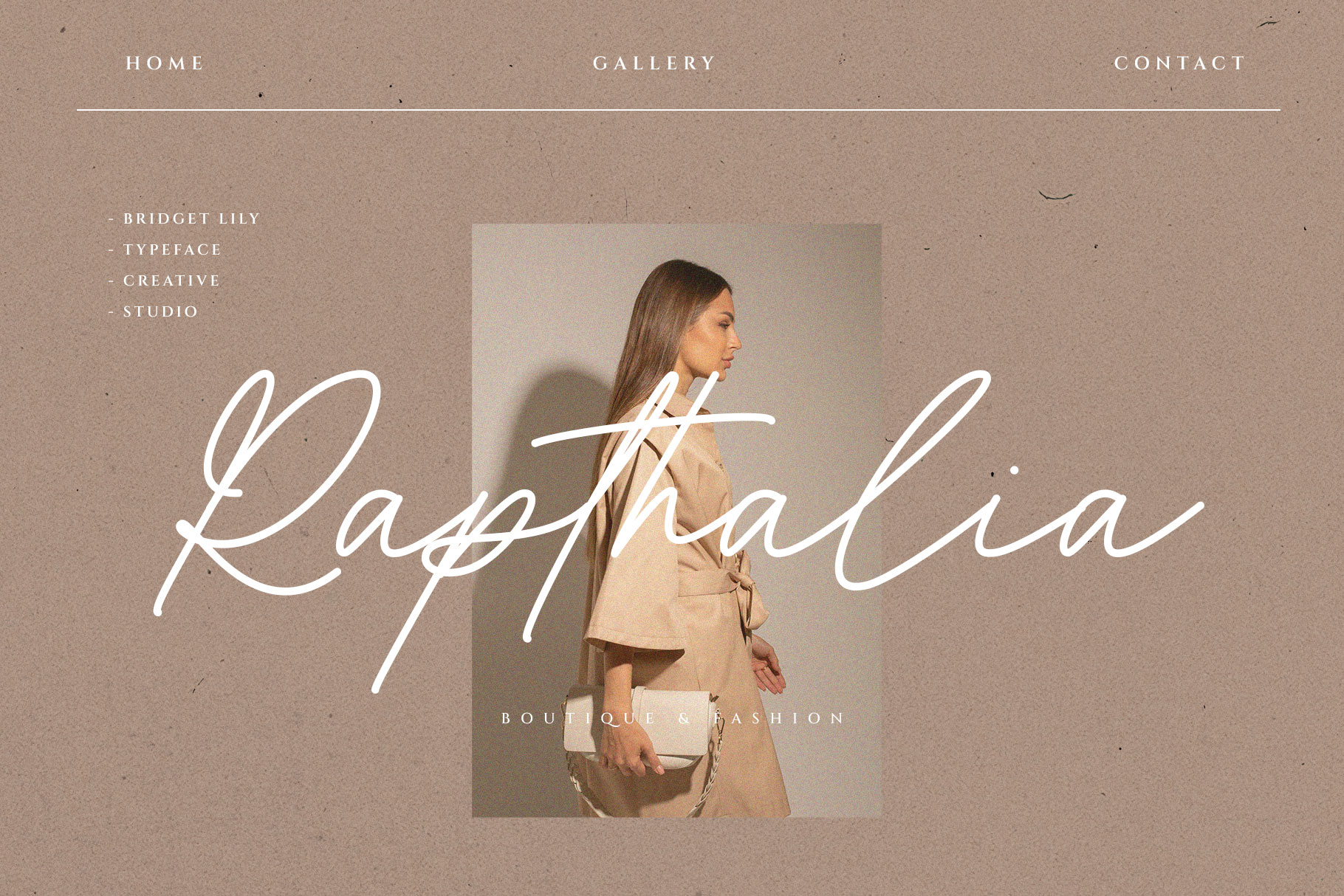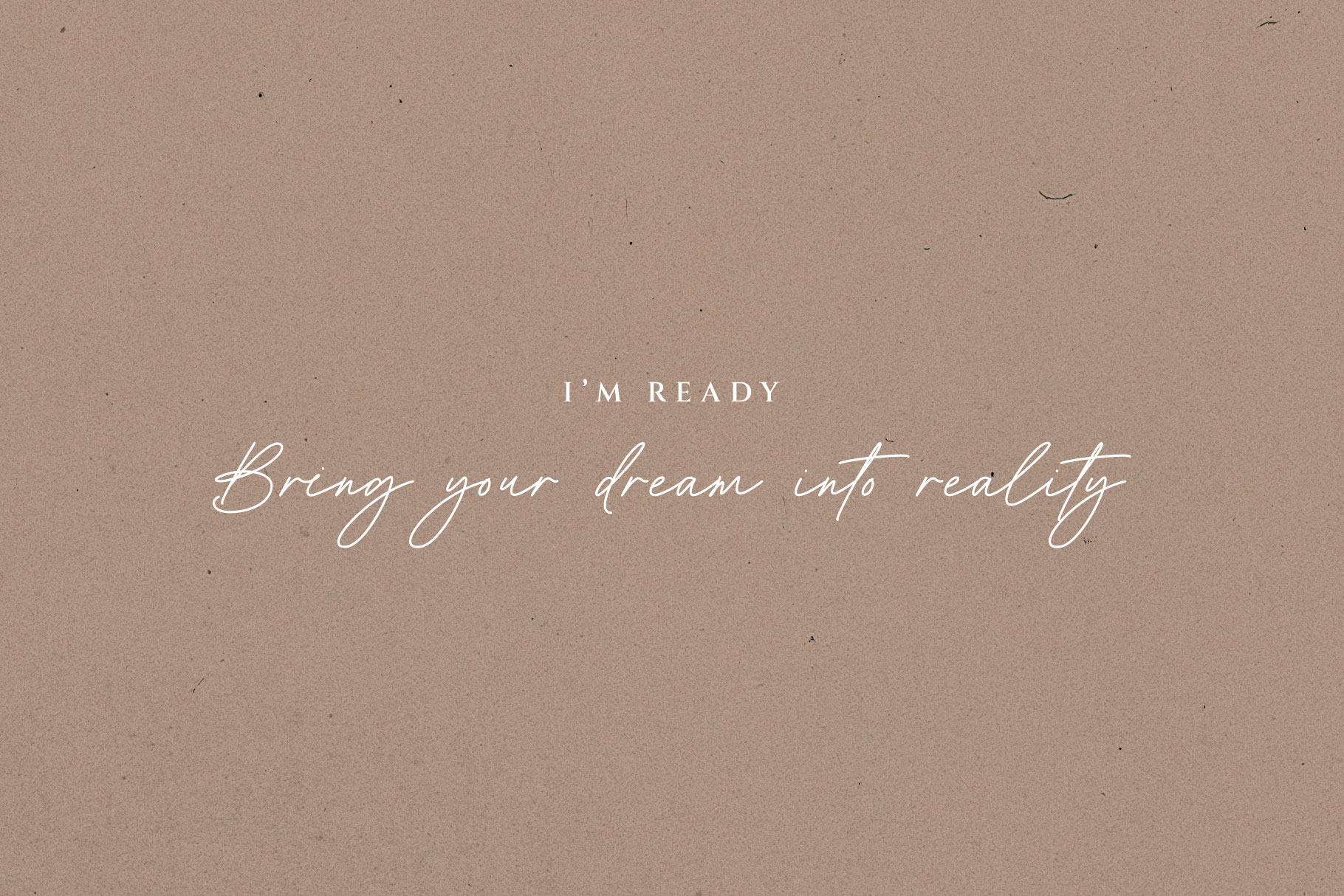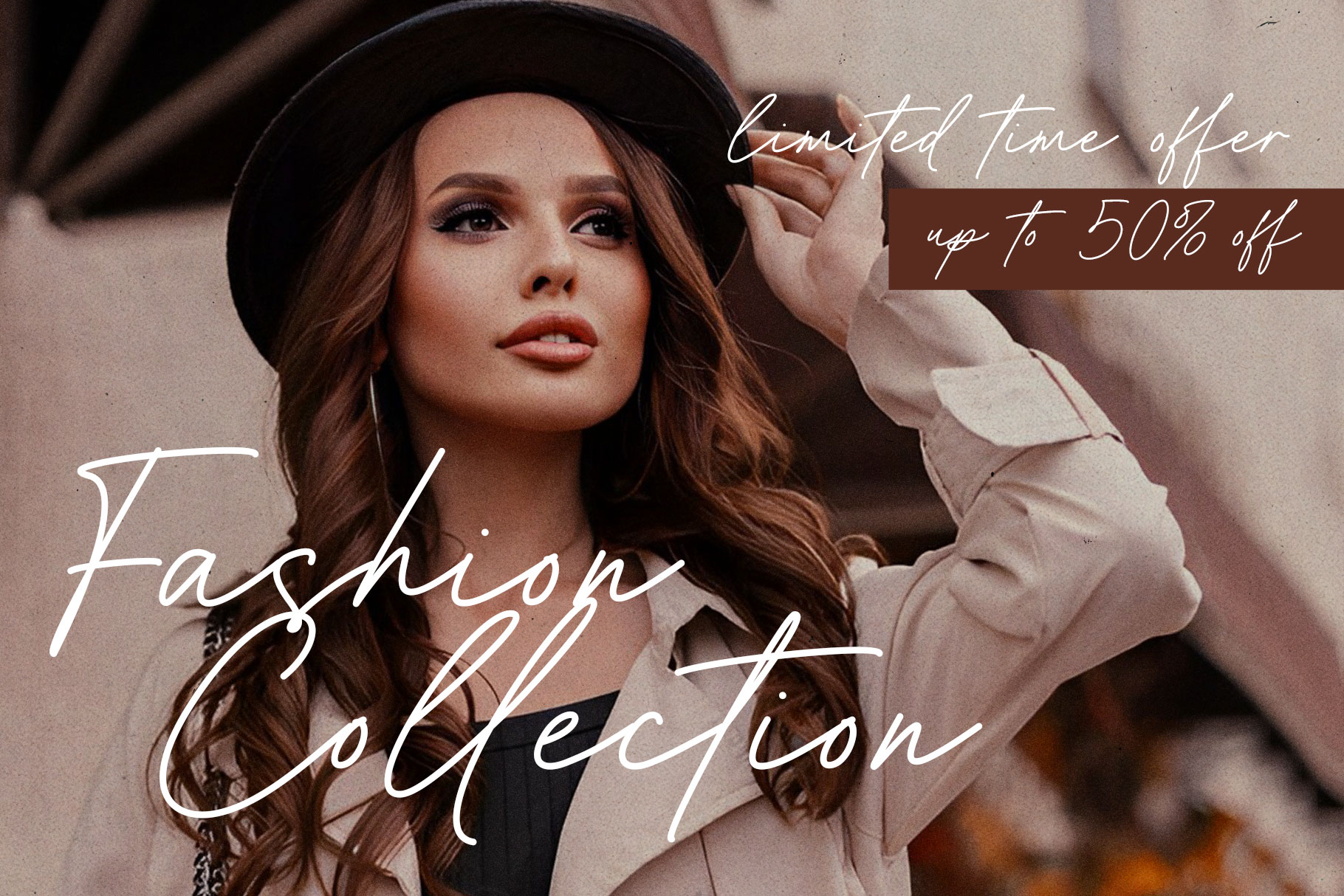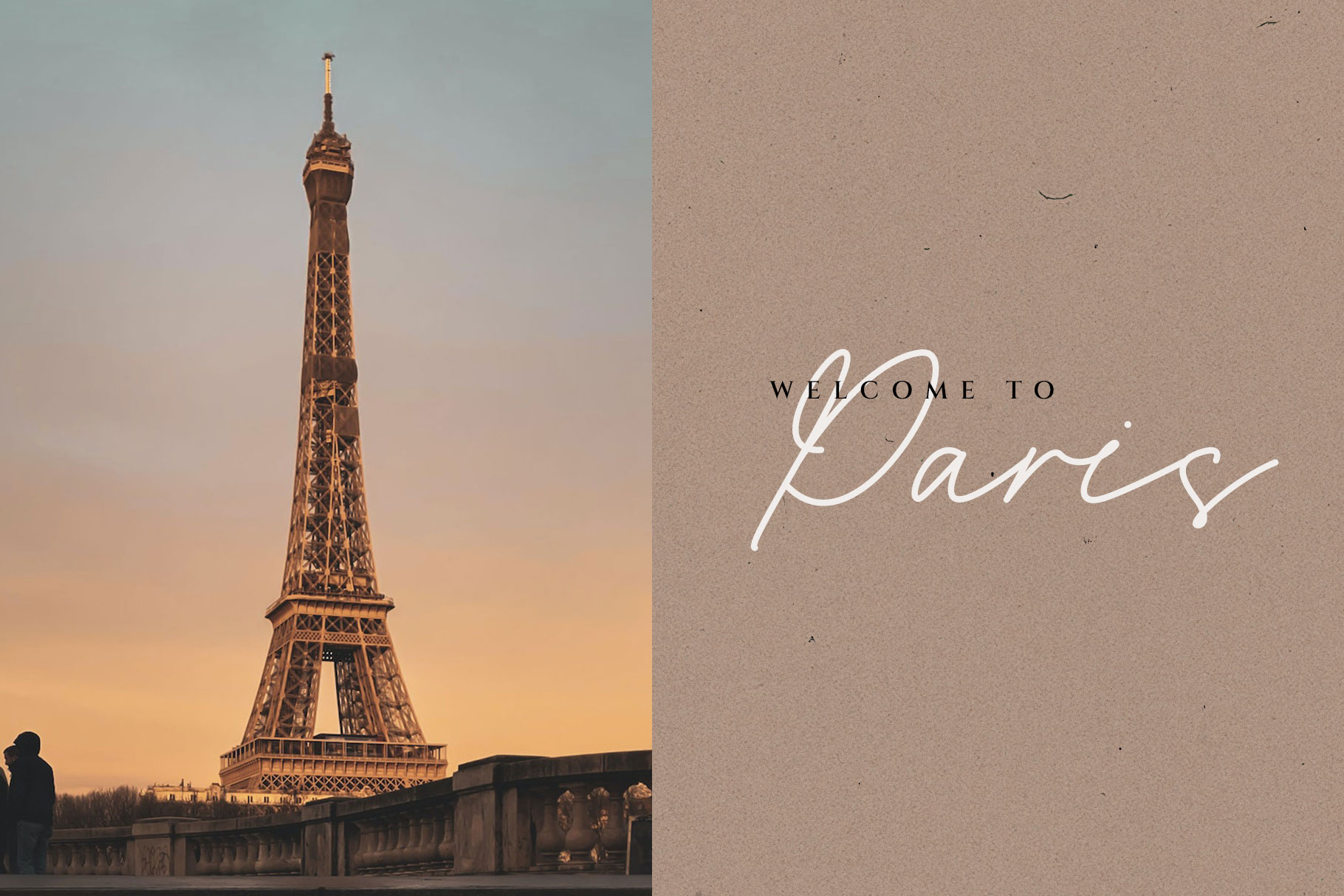
Bridget Lily Business Handwritten Font
Bridget Lily –  modern style font which can be interpreted professional. we keep this font looks modern, minimalist, elegant, readable, stylish, catchy and easy to use.
Bridget Lily – is the great choice for watermark on photography, branding, wedding event, signature or signature logo design, quotes, album cover, magazine, business card and many other design project. Bridget Lily here to make your work to high level!!!
• Ligature and Alternate